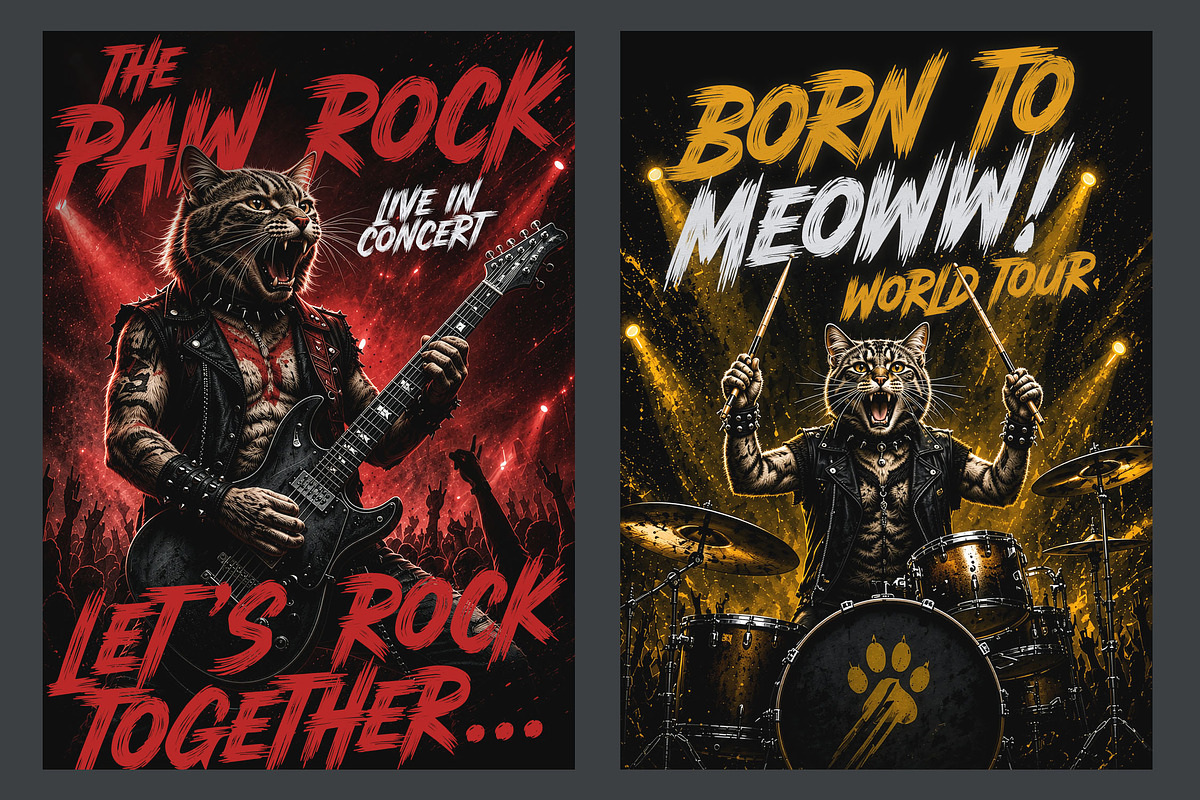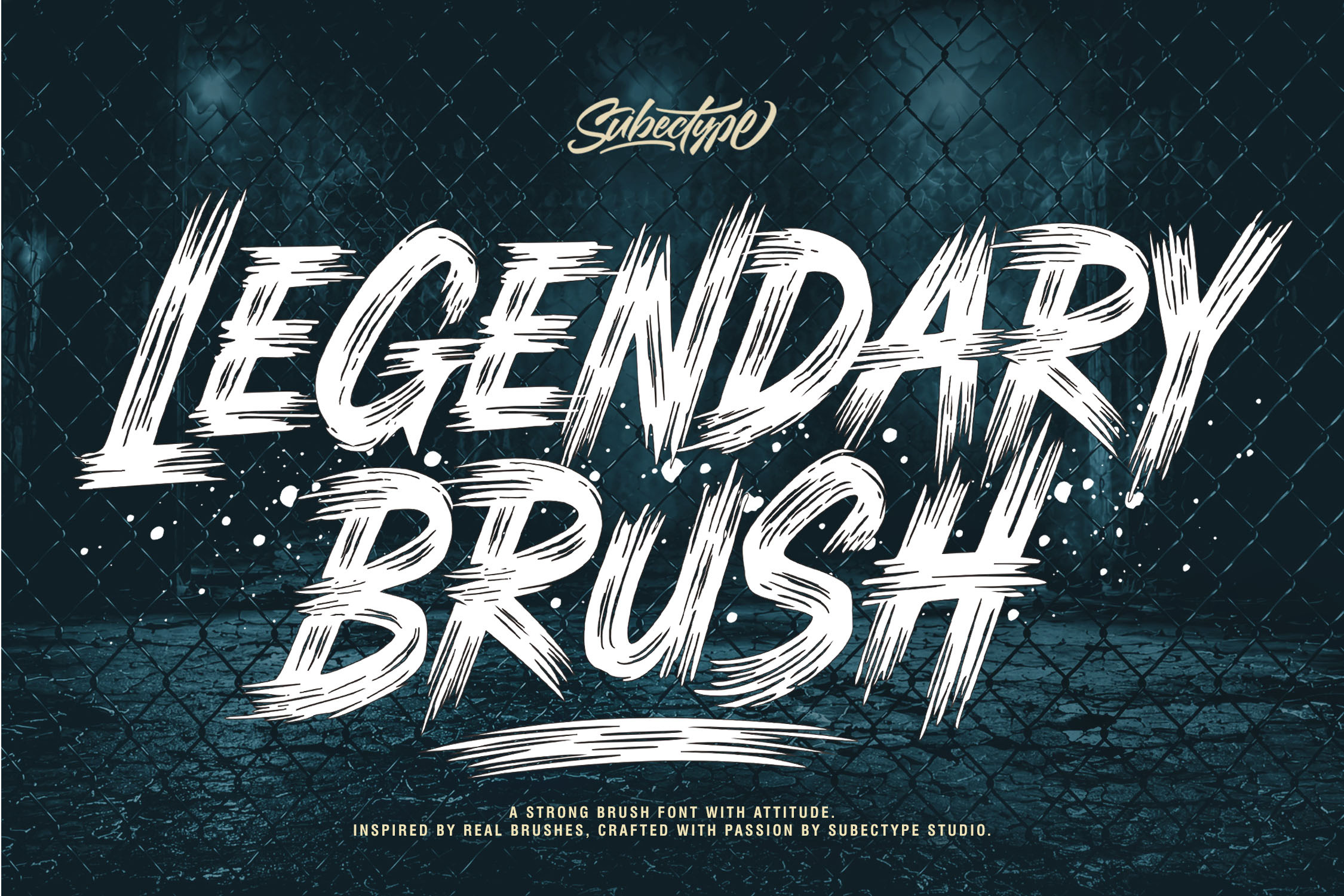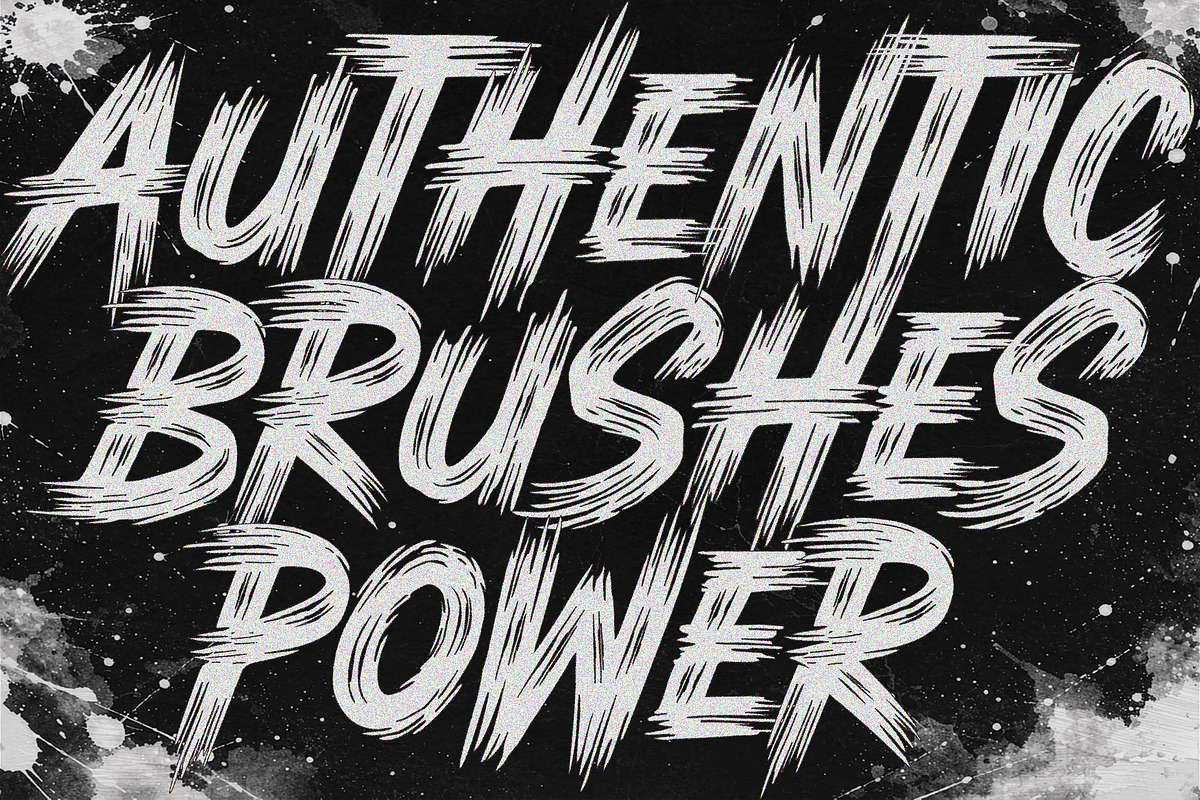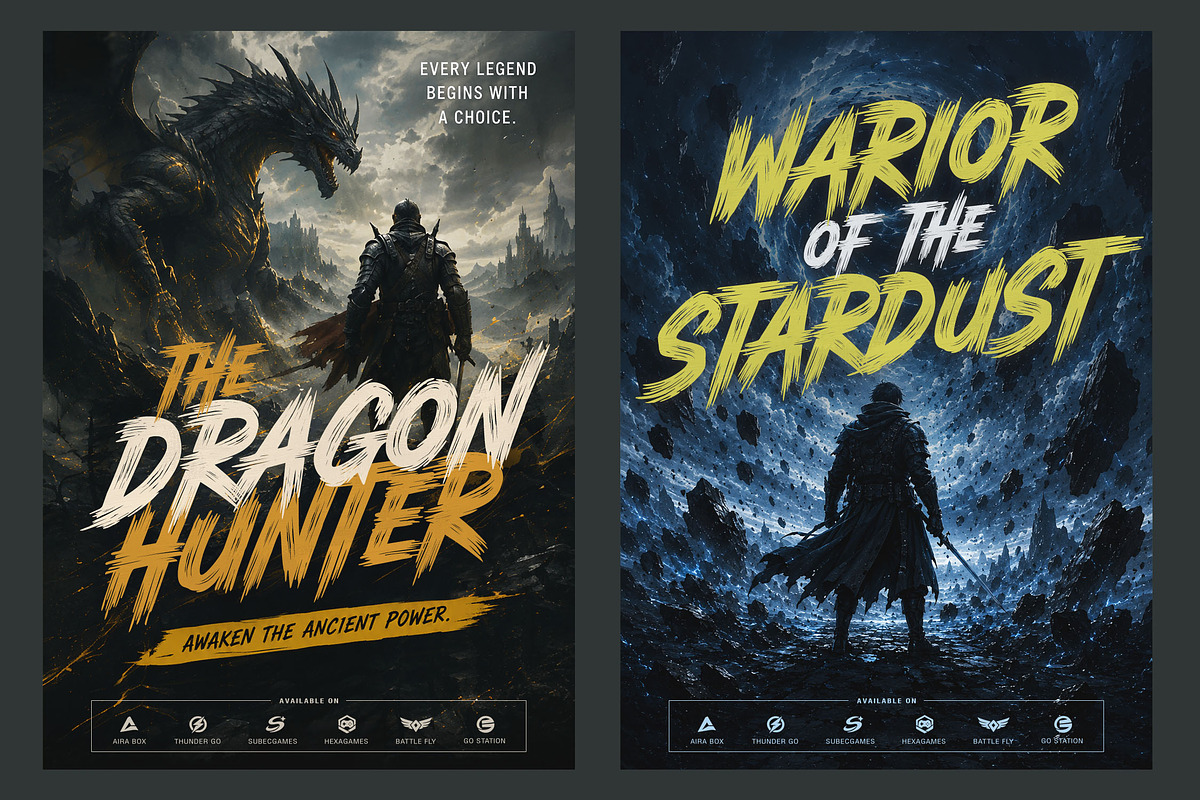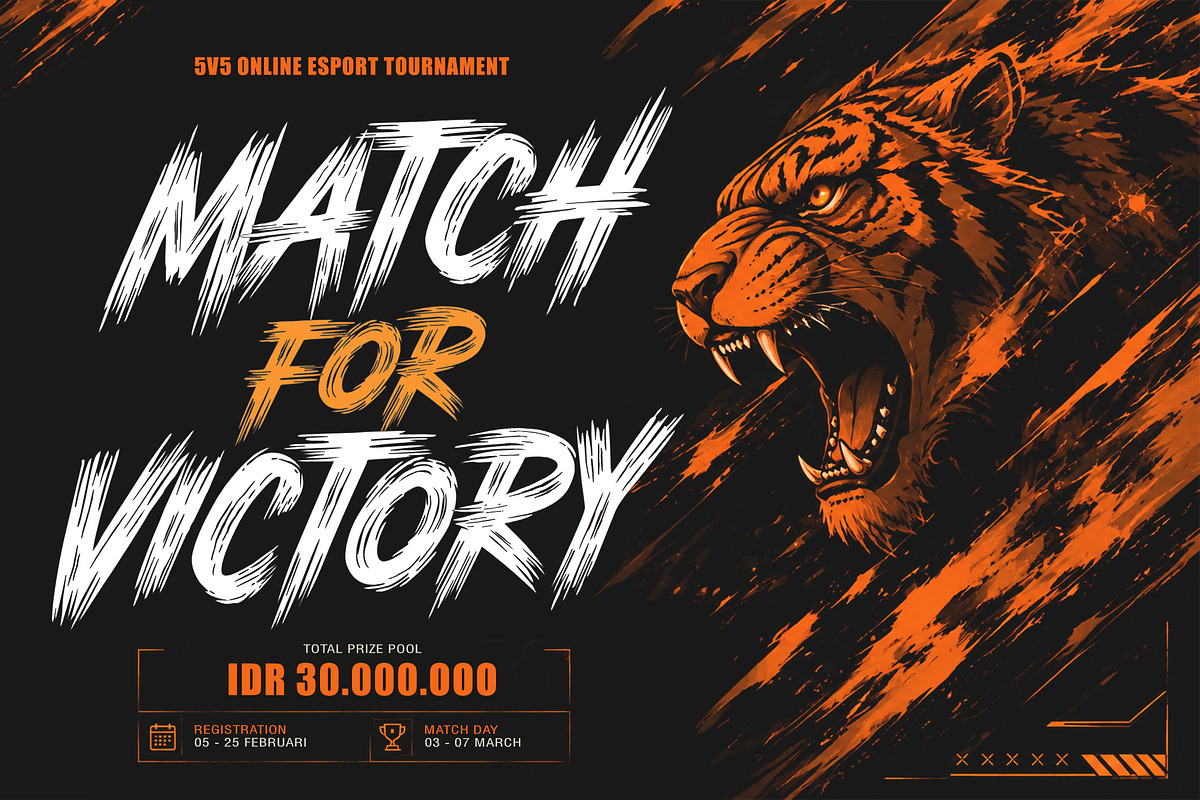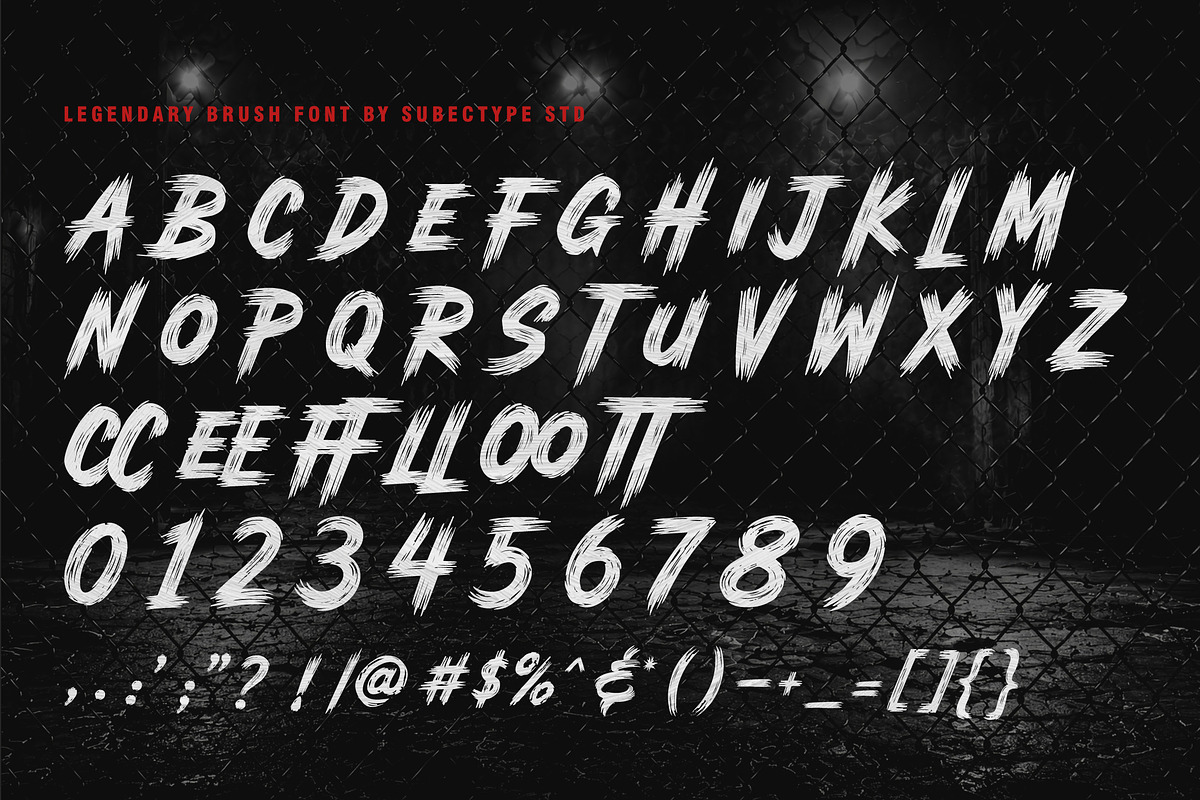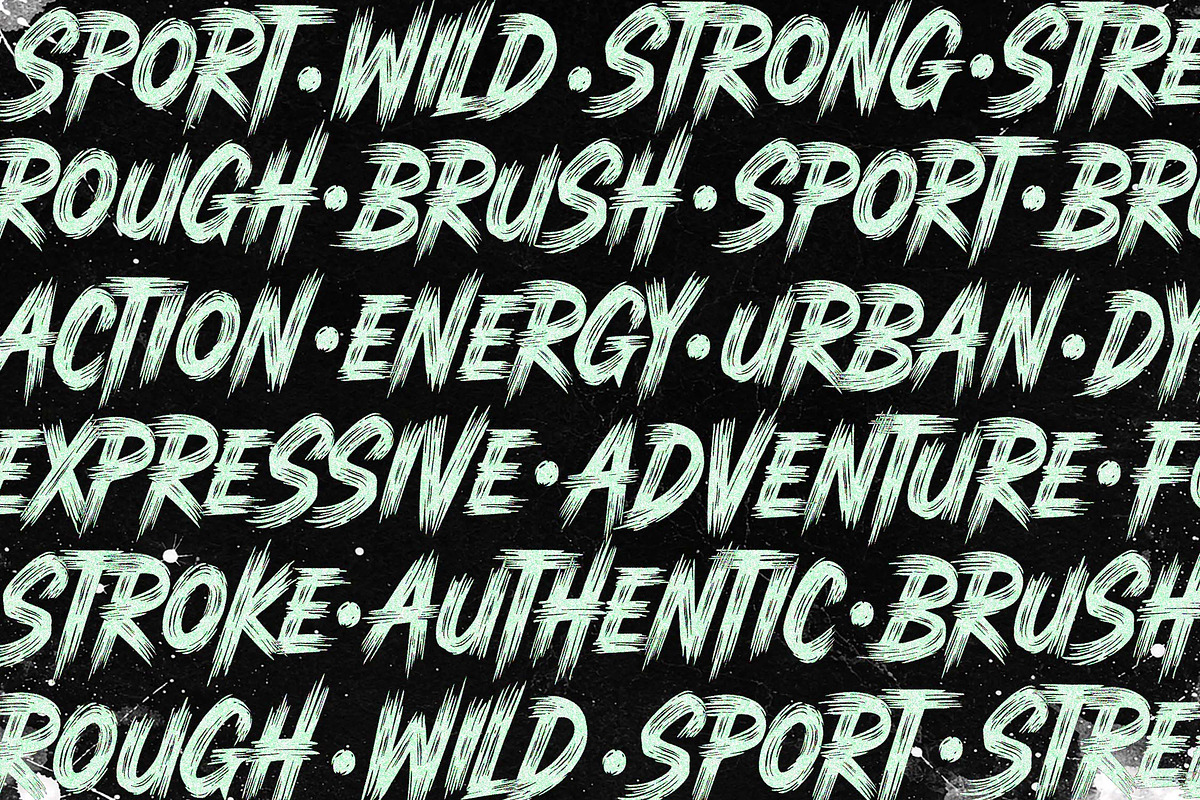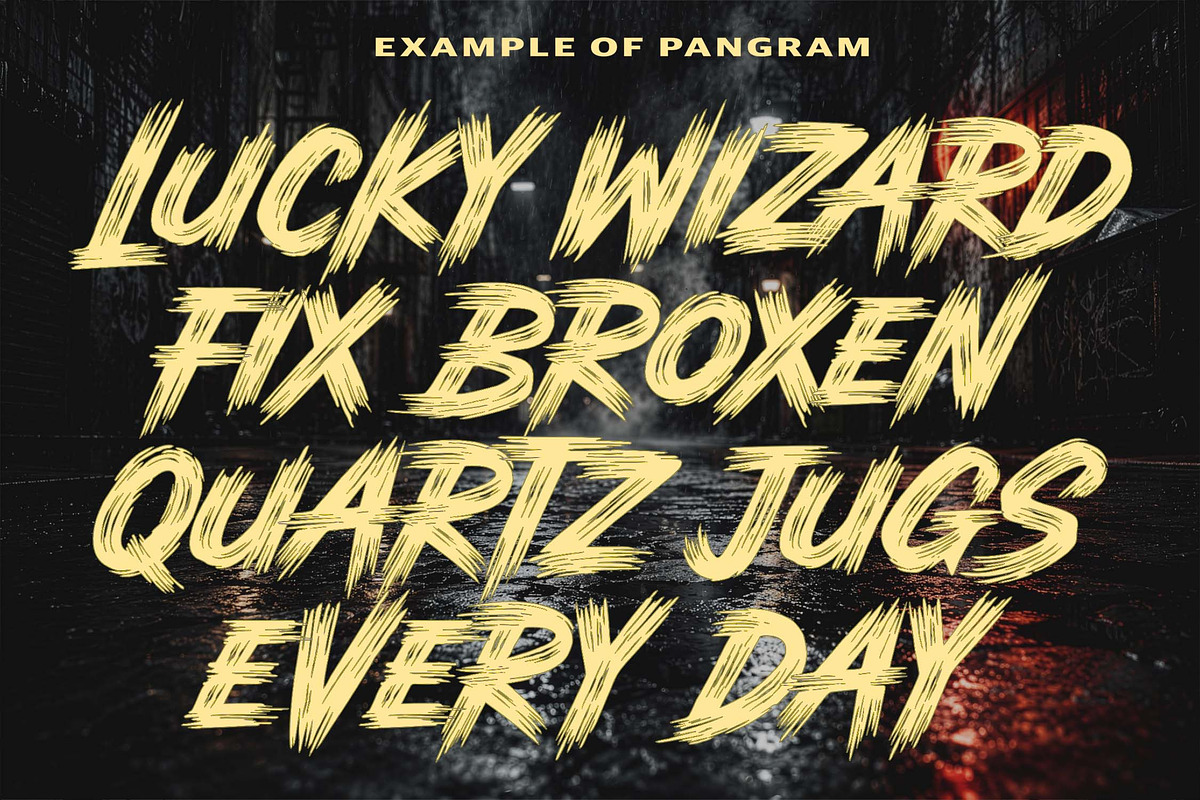
Legendary Brush - Urban Brush Font
Say hello to "Legendary Brush". Unleash unstoppable energy with a handcrafted brush font inspired by urban streets, extreme sports, and outdoor adventure. Every stroke is crafted to deliver bold impact, authentic character, and fearless attitude—perfect for branding, logos, posters, packaging, and creative projects that demand attention.